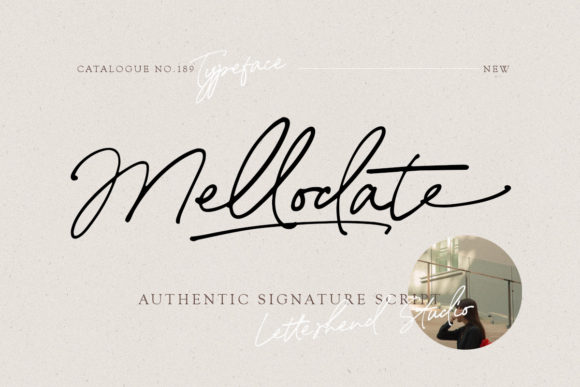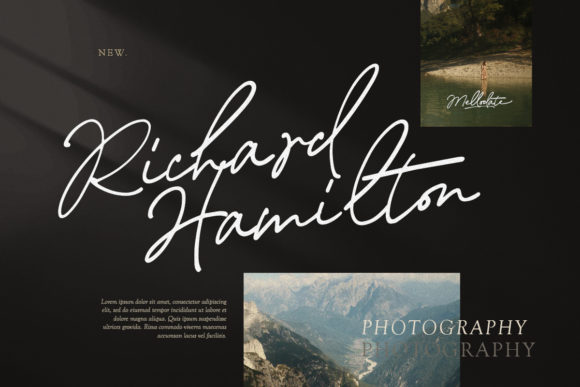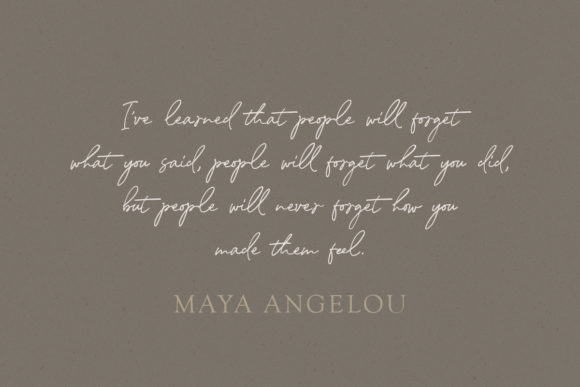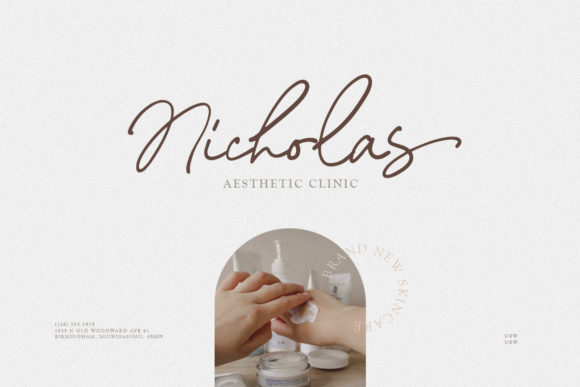
Mellodate Font: Elegant Signature Script for Wedding Invitations
About the Mellodate Font
Experience the unique personality of Mellodate Font, a font designed for impact. Mellodate is a beautiful and cursive handwritten font. Dainty and joyful, this font will be ideal for writing wedding invitations, cards or any other design that may need a romantic, personalized touch!
Mellodate’s delicate nature makes it perfect for projects requiring a touch of romanticism and personalized charm. It excels in wedding invitations, greeting cards, short quotes on social media, or branding for businesses focused on artisanal goods or handmade crafts. However, its cursive style and varying stroke weights make it unsuitable for body text or UI elements where readability is paramount. Avoid using it in long paragraphs or for on-screen applications.
Pairing Mellodate with a clean sans-serif like Lato or Open Sans provides a strong contrast and enhances readability when used together. For a more sophisticated feel, consider pairing it with a classic serif font such as Garamond or Playfair Display. These combinations balance Mellodate’s whimsical charm with a practical level of usability.
Its overall personality is best described as friendly, delicate, and charming, making it ideal for conveying warmth and a handcrafted aesthetic.
Mellodate Font Usage Examples
Mellodate Font Example